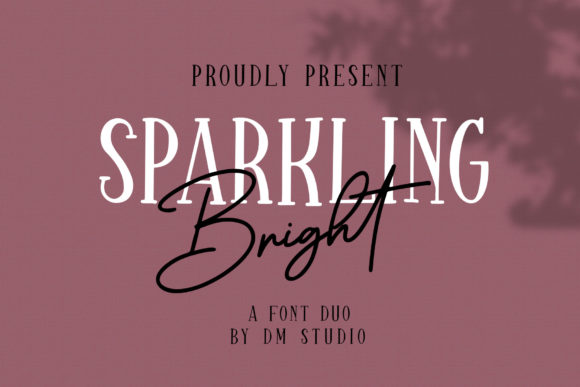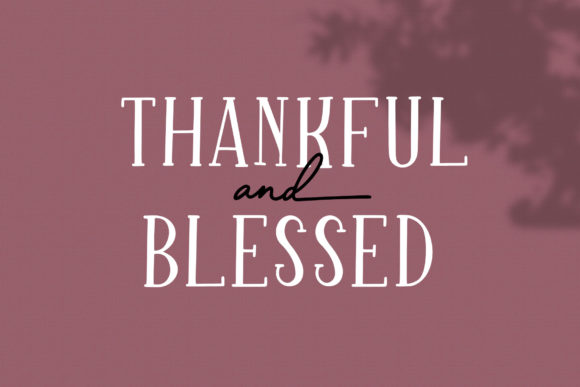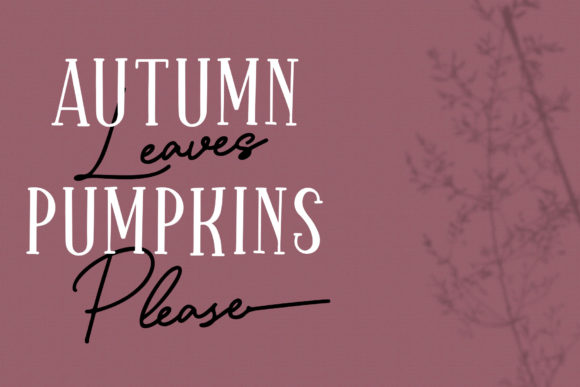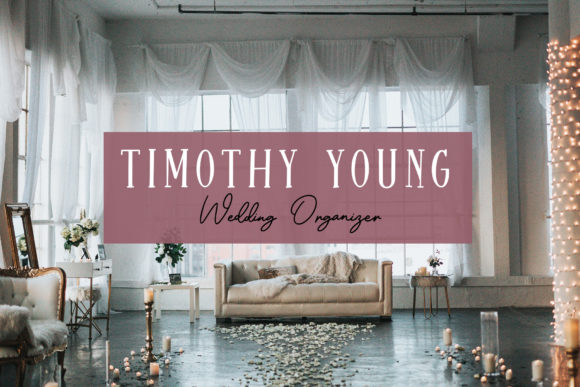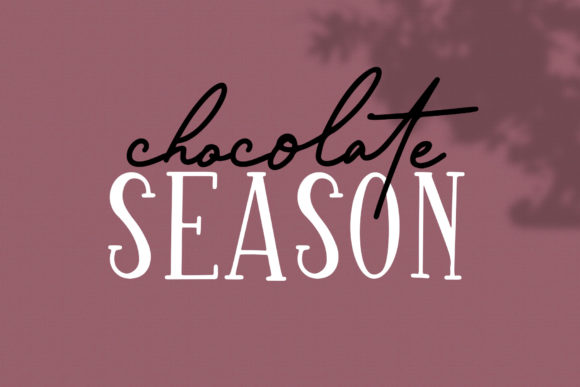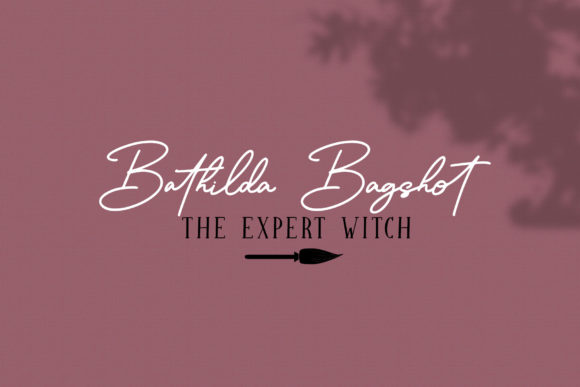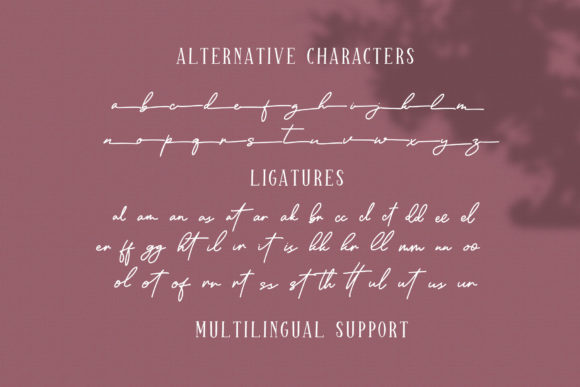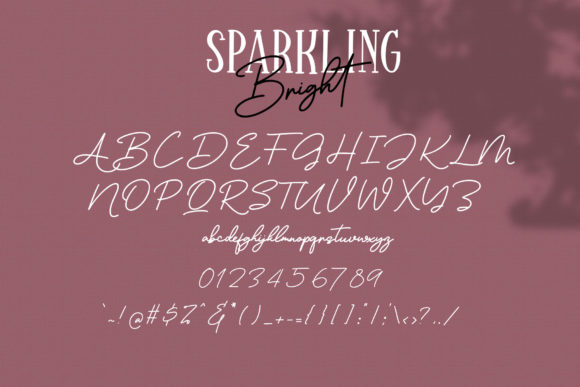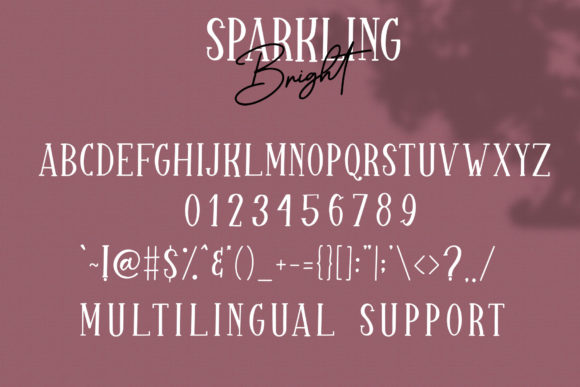
Sparkling Bright Duo Font
About Sparkling Bright Duo Font
Sparkling Bright is a playful font duo containing script and serif font styles. Use them together to add a modern & chic feel to your designs.